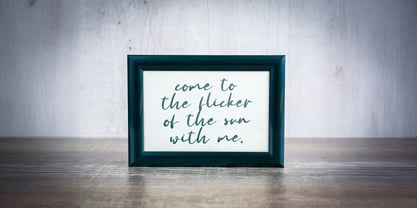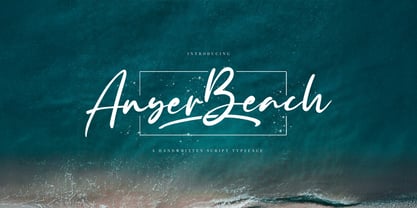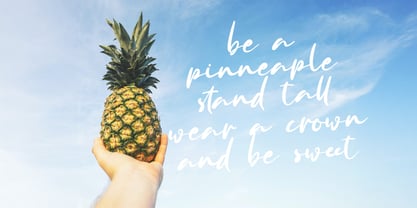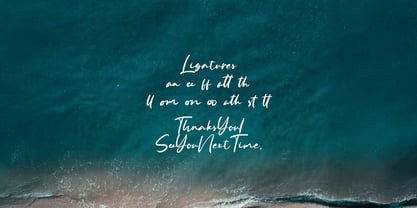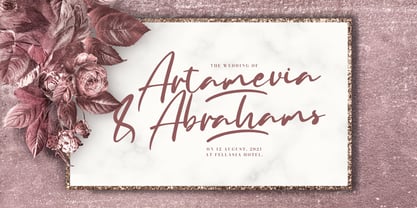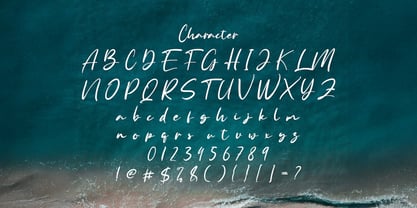
Anyer Beach
par Stringlabs Creative Studio
La famille de polices Anyer Beach a été conçue par Virgiawan Listanto et publiée par Stringlabs Creative Studio. Anyer Beach contient 1 styles.
Anyer Beach is a relaxed yet elegant handwritten font inspired by the rhythm of ocean waves and the carefree charm of coastal living. With smooth curves, fluid lines, and a natural handwritten flow, this font brings warmth and personality to any project.
Concepteurs: Virgiawan Listanto
Éditeur: Stringlabs Creative Studio
Fonderie: Stringlabs Creative Studio